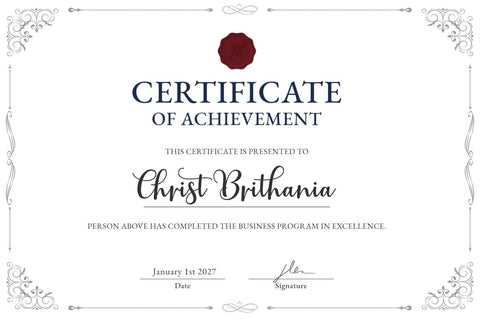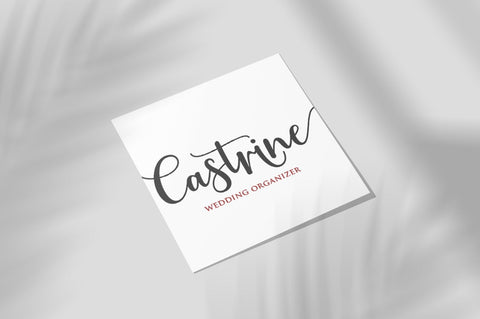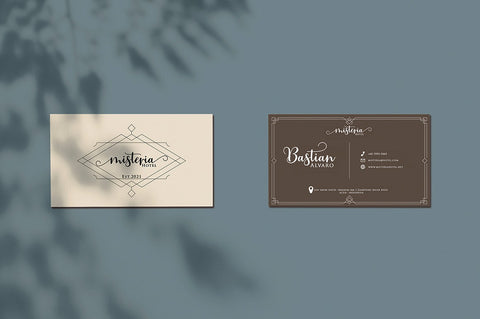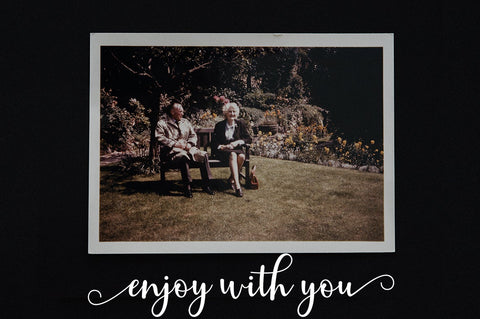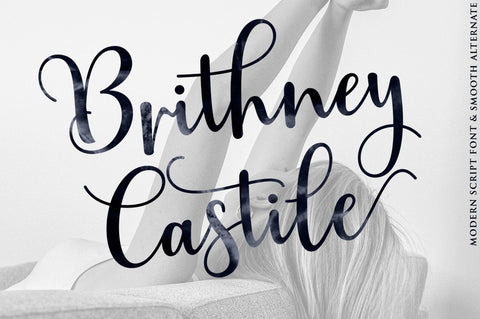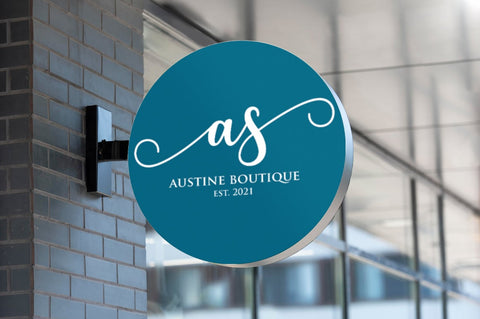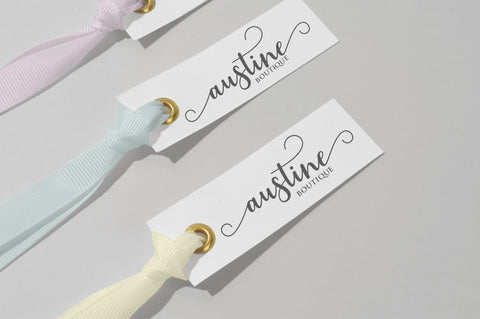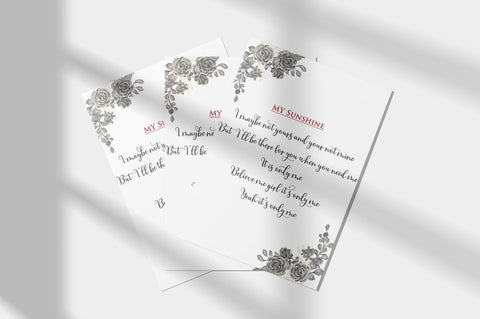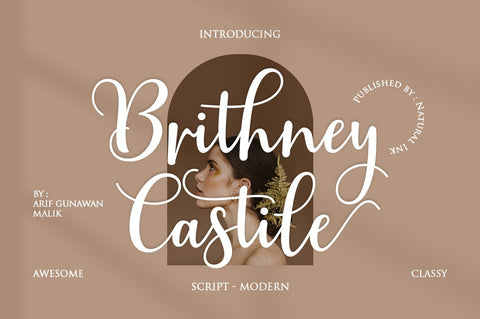
Brithney Castile Script
Brithney Castile Script is a modern calligraphy design, including Regular. This font is casual and beautiful with swash. Can be used for various purposes. such as logos, product packaging, wedding invitations, branding, headlines, signage, labels, signatures, book covers, posters, quotes, and more.